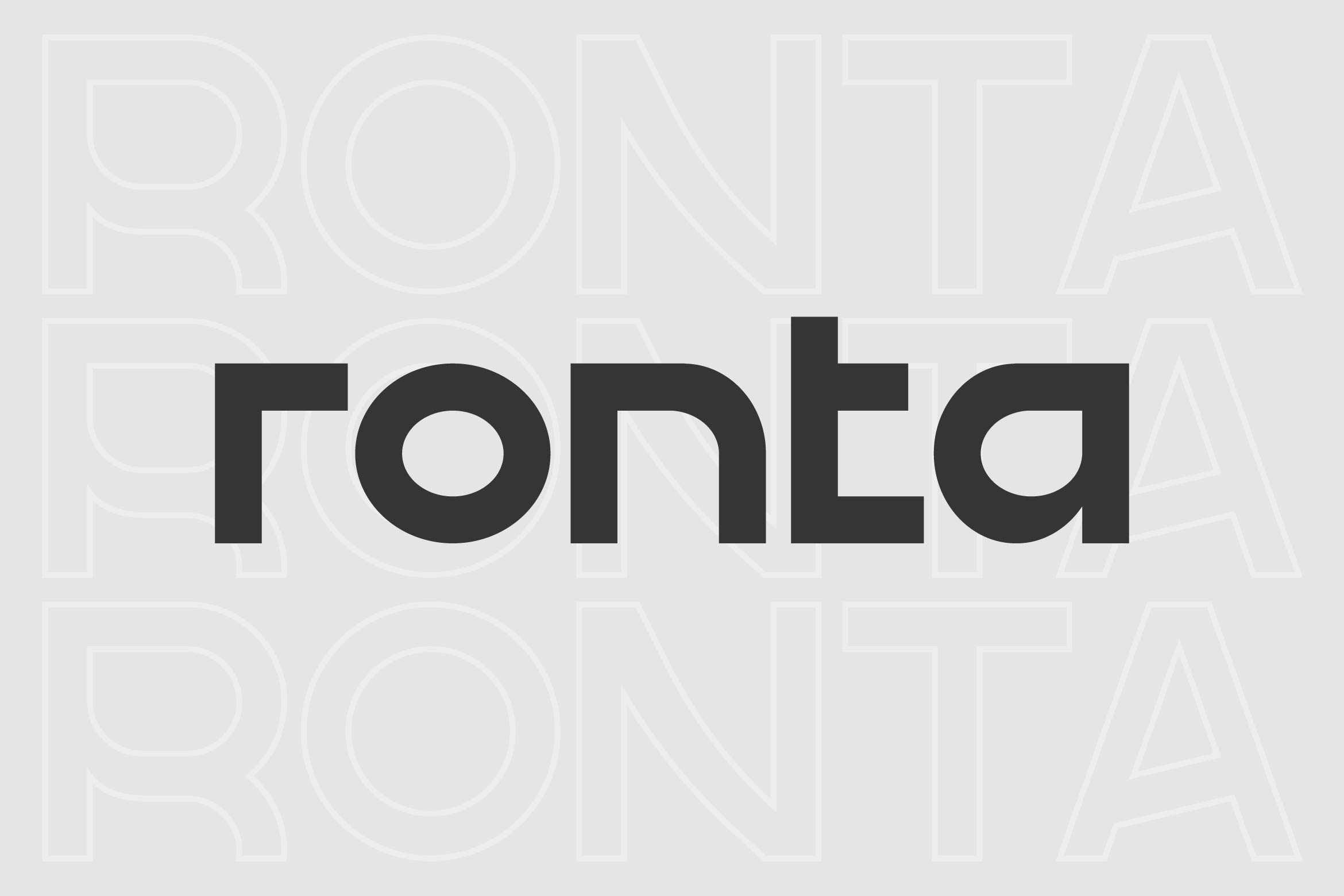
- Ronta Elegant Sans Typeface
Ronta is a contemporary sans serif font designed to bring originality and sophistication to your designs. Featuring clean geometry, subtle curves, and distinctive letterforms, Ronta strikes a balance between functionality and creative expression. It’s perfect for branding, logo design, packaging, editorial layouts, posters, and digital media projects that need a fresh and stylish look.
Its versatile structure ensures excellent readability while standing out with a unique, modern personality. Suitable for fashion, tech, lifestyle, and creative industries, Ronta adapts beautifully to both bold headlines and minimalistic body text.
The font includes uppercase and lowercase letters, numerals, punctuation, multilingual support, and stylistic alternates for added customization.
Elevate your visual identity with Ronta — the creative sans serif that blends clean aesthetics with a distinctive, contemporary twist.